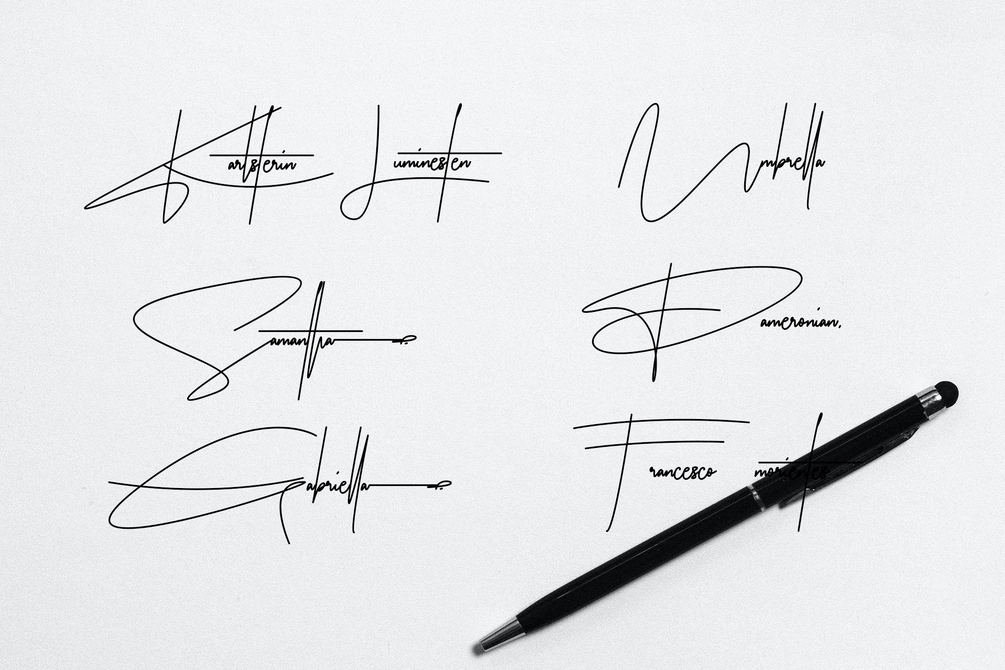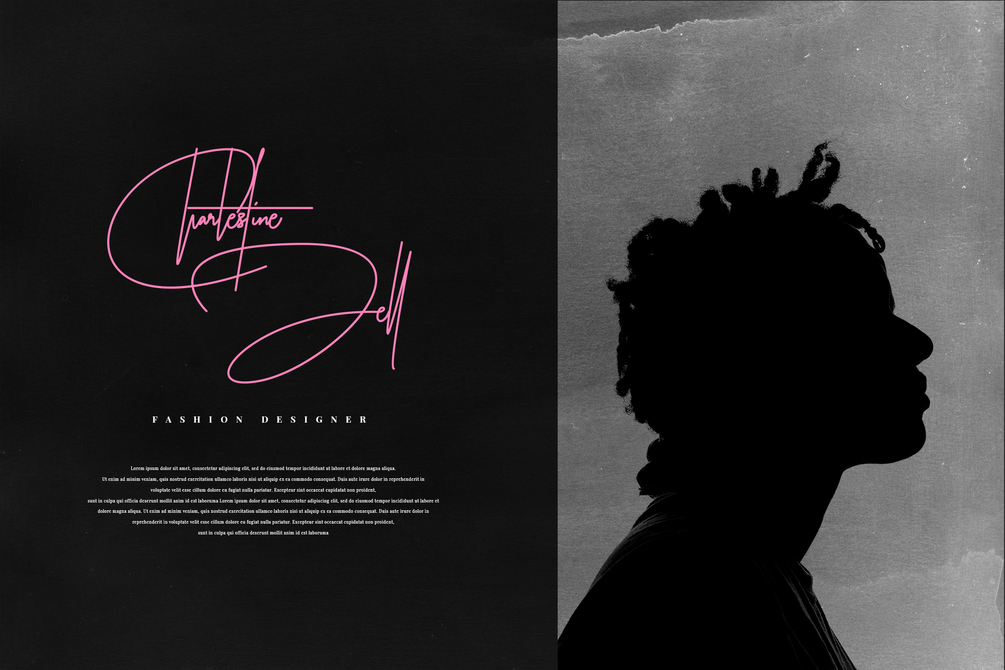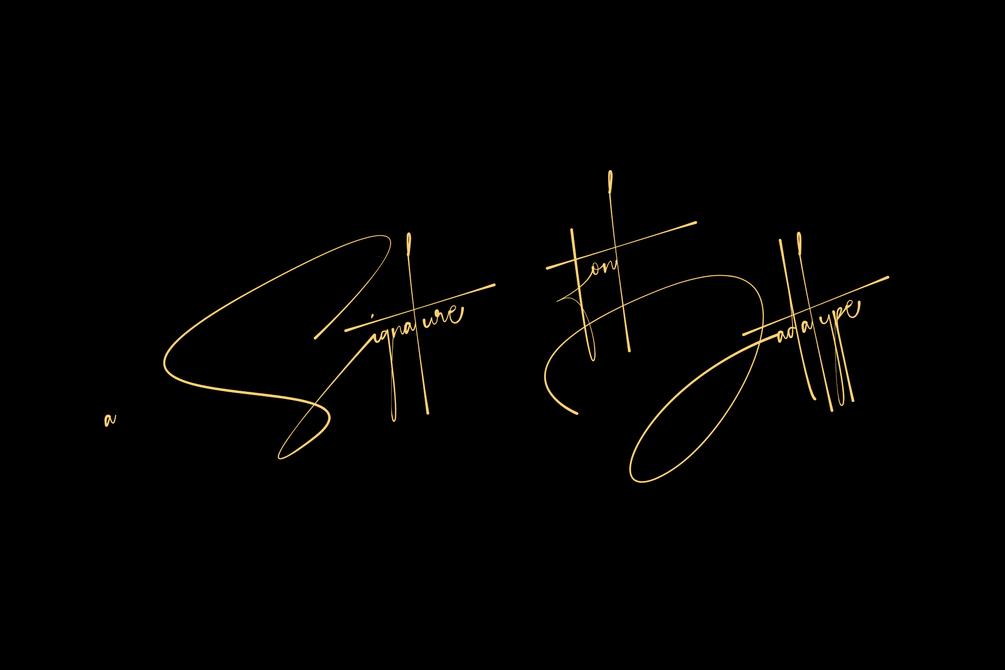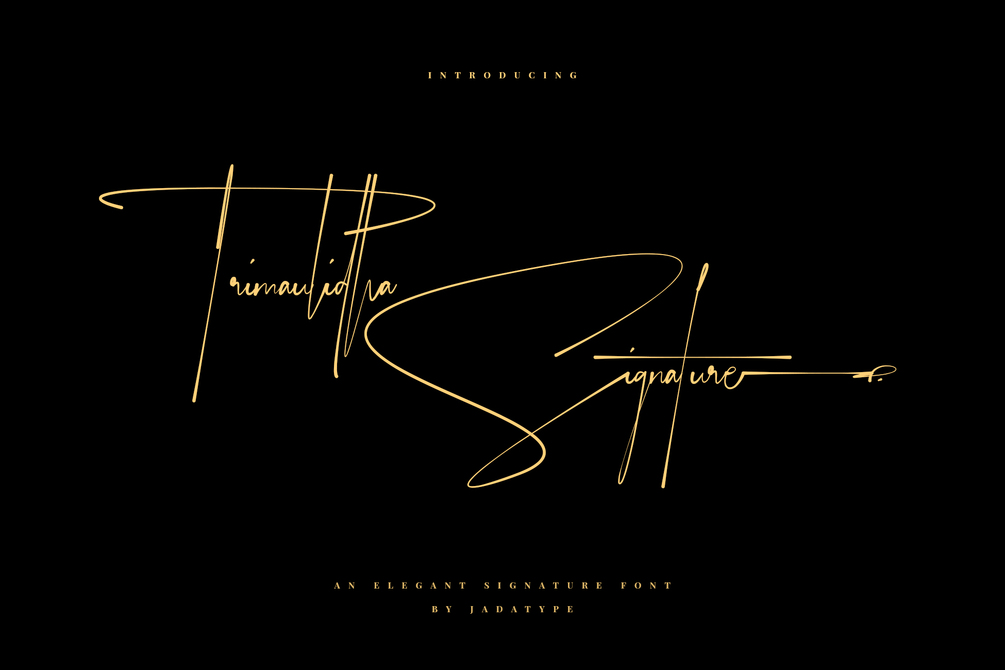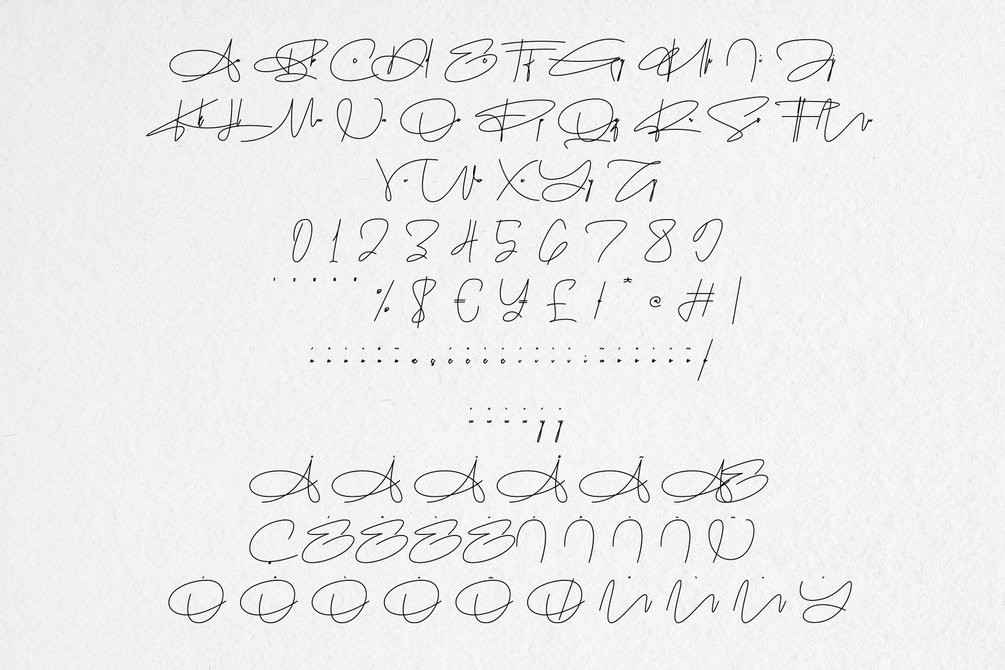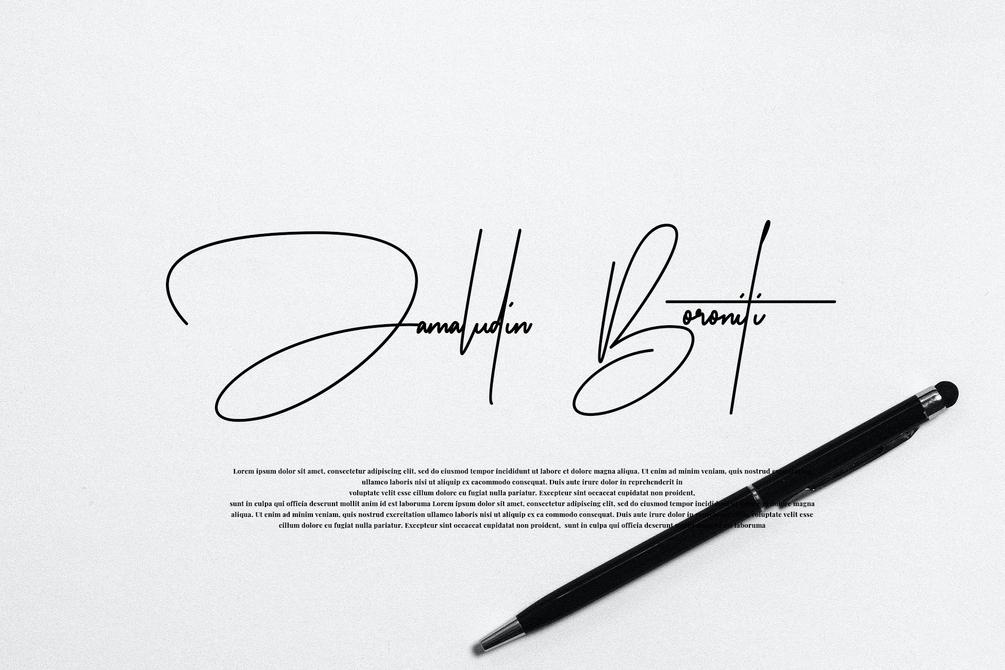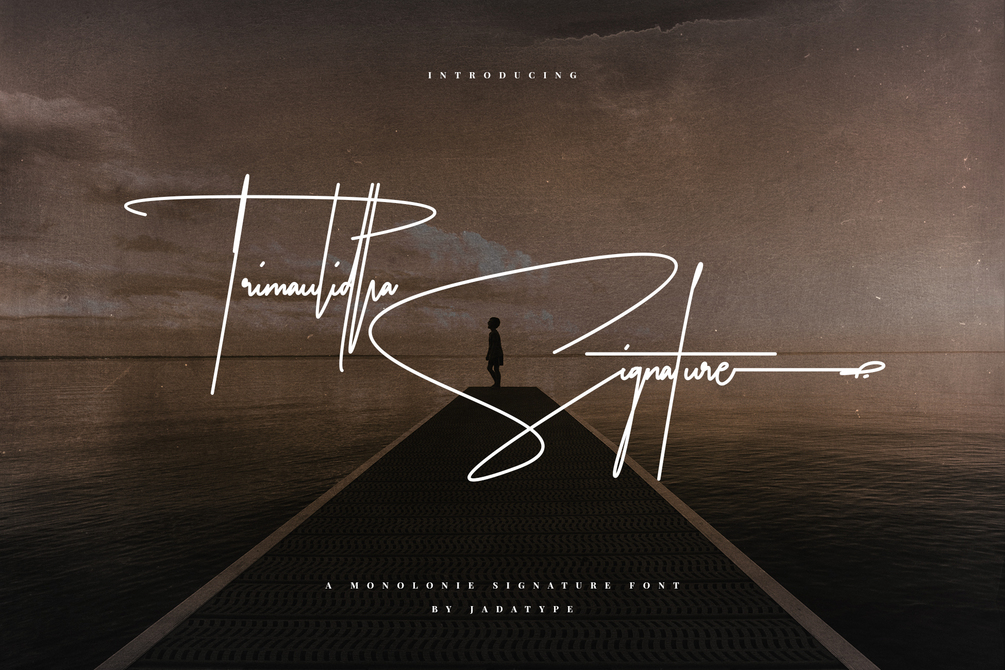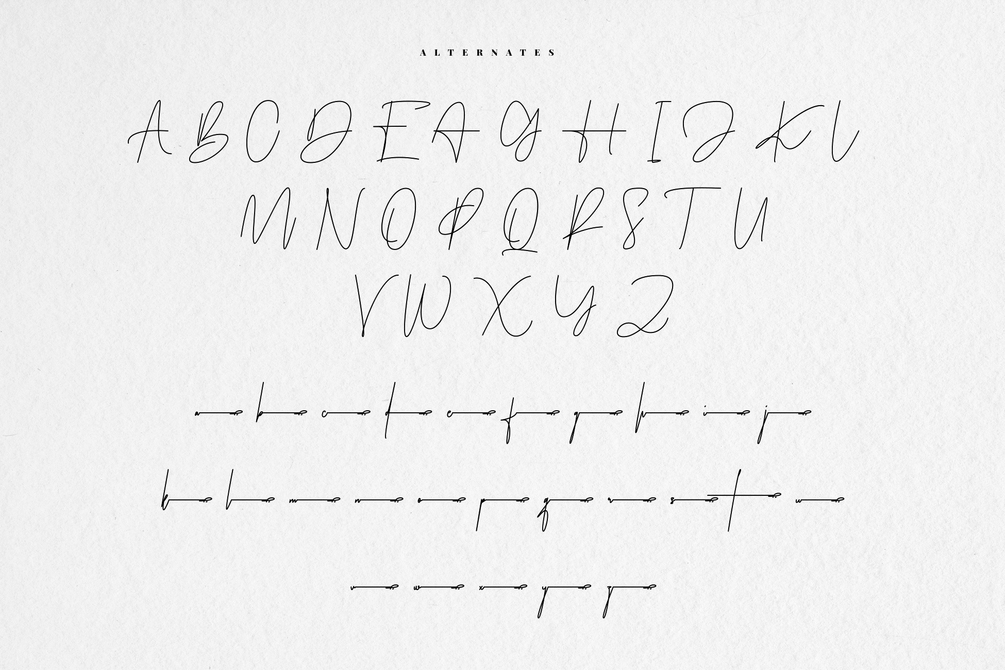
Trimaulidha Font
Trimaulidha is a signature monoline font that has a hand-lettering style. suitable for logotype, branding, social media, products, advertisements, and so on. contains standard English letters, numbers, punctuation, and several accents that support multilingualism.